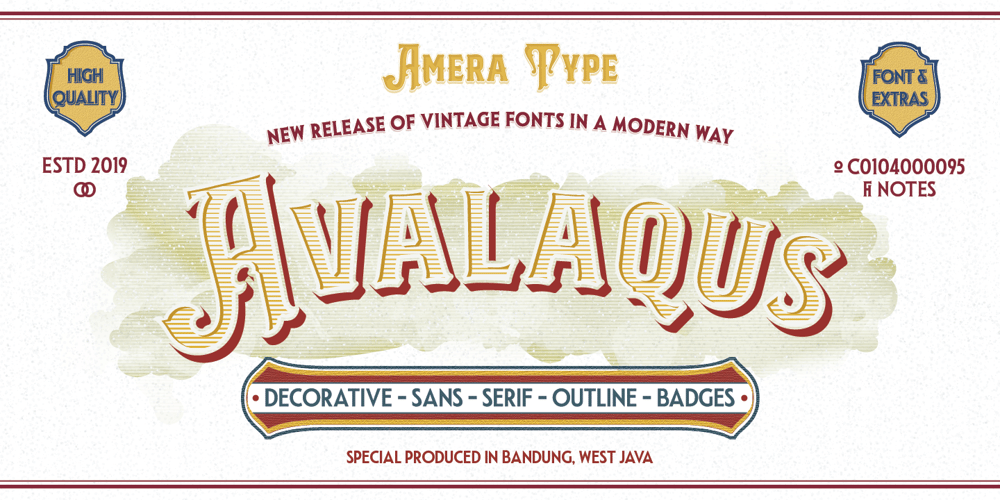
Avalaqus Font Family was designed by Cahyadi Ikhsan and published by Amera Type. Avalaqus contains 6 styles and family package options. Avalaqus is a font inspired by certificate, labels, posters, F&B packaging and has ligatures with alternate style that can make your display better than before. You will get a decorative font, sans, serif with bold and outline styles. And you will also get a set of badges with the open type feature format that match this typeface